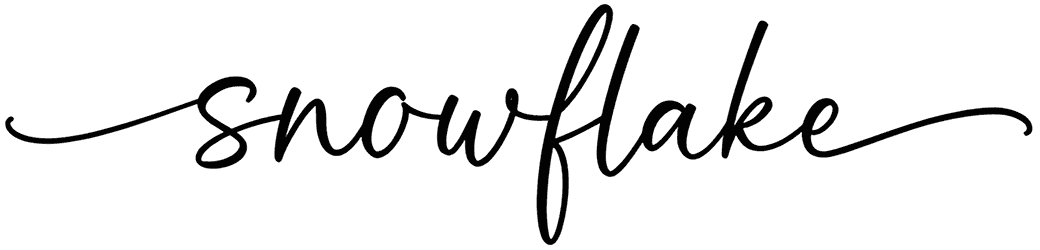
Snowflake Font
The Snowflake font is a connected script with a romantic feel. You may use this in any creative endeavor, from commercials and magazines to packaging and greeting cards.
If your typography is feeling stale, this flowing minimalist tattoo font can save the day by making it visually appealing even if it isn’t the most legible option. Give it a shot, and you’ll end up with something that is endearing, natural, and interesting to look at.